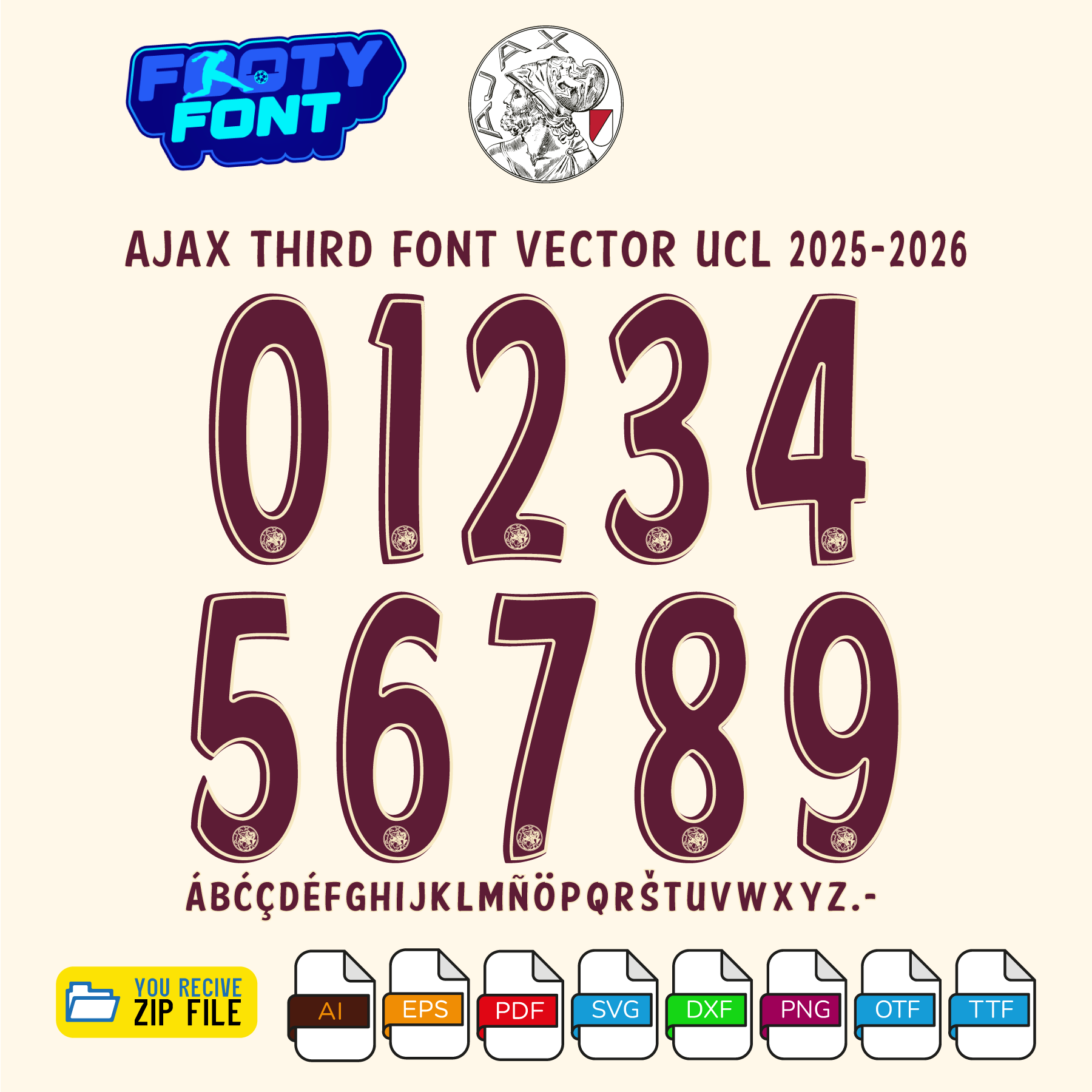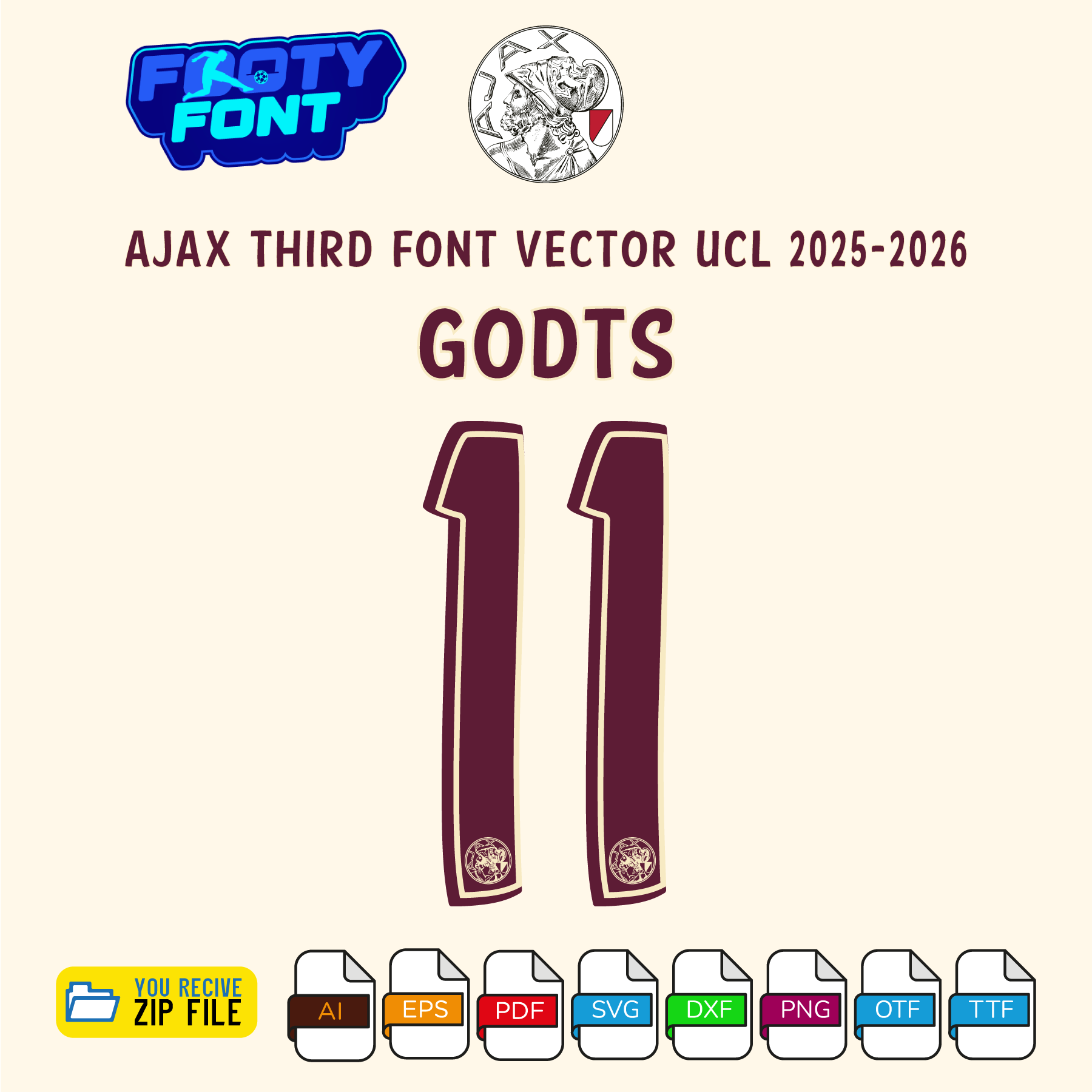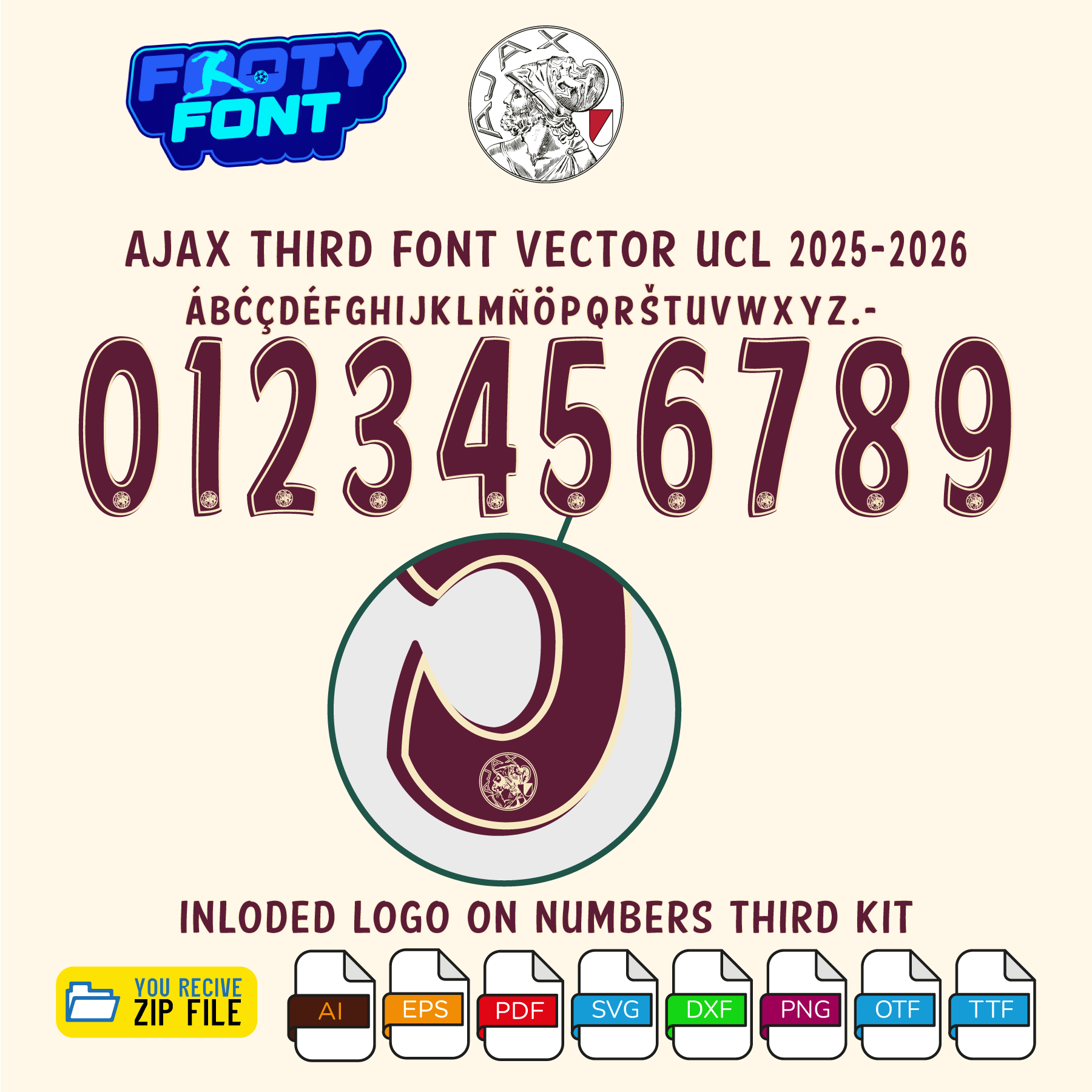
About the Ajax 2025-2026 Football Font
Celebrate the intersection of football and culture with this font, inspired by the AFC Ajax 2025-2026 UCL third kit. This is a high-quality typeface designed to replicate the look of the bold and creative alternate jersey that always makes a statement on European nights.
This font captures the style worn by the stars at the Johan Cruyff Arena like Steven Bergwijn, Brian Brobbey, and Jorrel Hato. Ajax third kits are more than just sportswear; they are collector’s items. This font is essential for designers, fashion enthusiasts, and fans looking to create unique posters, custom merchandise for personal use, or digital art that stands out from the rest.
Use this font to bring the unique, artistic style of Amsterdam into your designs—whether for custom jersey graphics, fan merchandise, posters, or social media content.